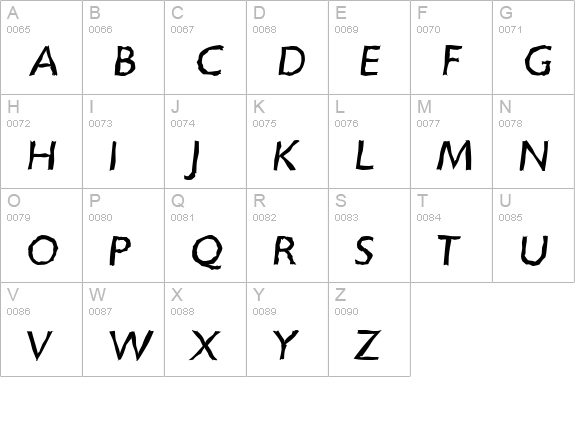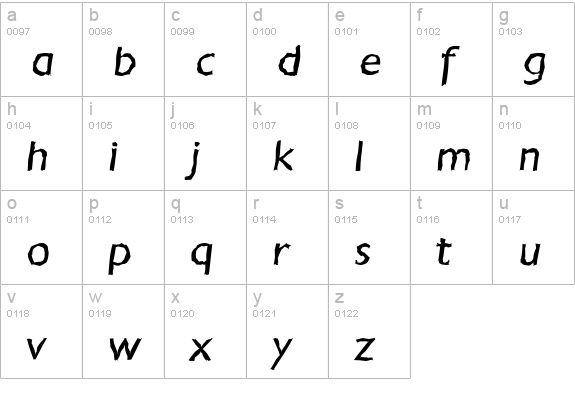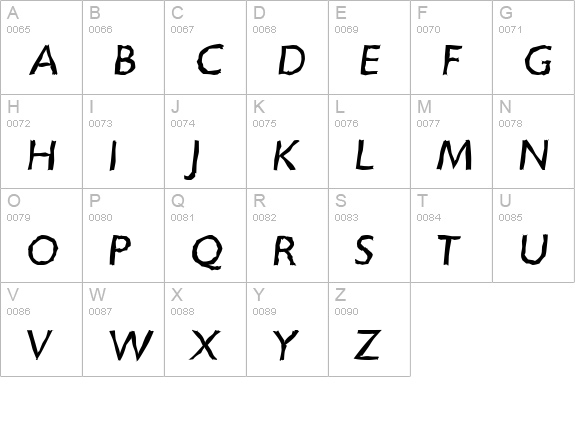
ChantillyRandom-Italic is a distinctive, italic variant in the ChantillyRandom typeface family \xE2\x80\x94 well suited to design and typography projects.
ChantillyRandom-Italic is a whimsical and playful font that adds a touch of elegance to any design project. With its unique and charming italic style, this font is perfect for creating eye-catching headlines, invitations, and social media graphics. The flowing letterforms evoke a sense of creativity and sophistication, making ChantillyRandom-Italic a versatile choice for both personal and professional use. What's even better is that this font is available for free download at FontsMarket.com. You can easily access this beautiful typeface and enhance your designs with its graceful and modern aesthetic. Let ChantillyRandom-Italic inspire your creativity and bring a touch of sophistication to your next project.